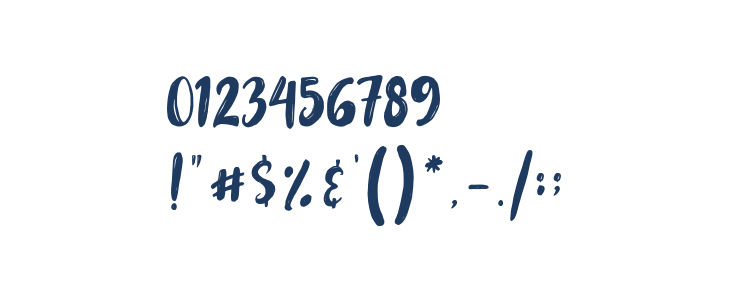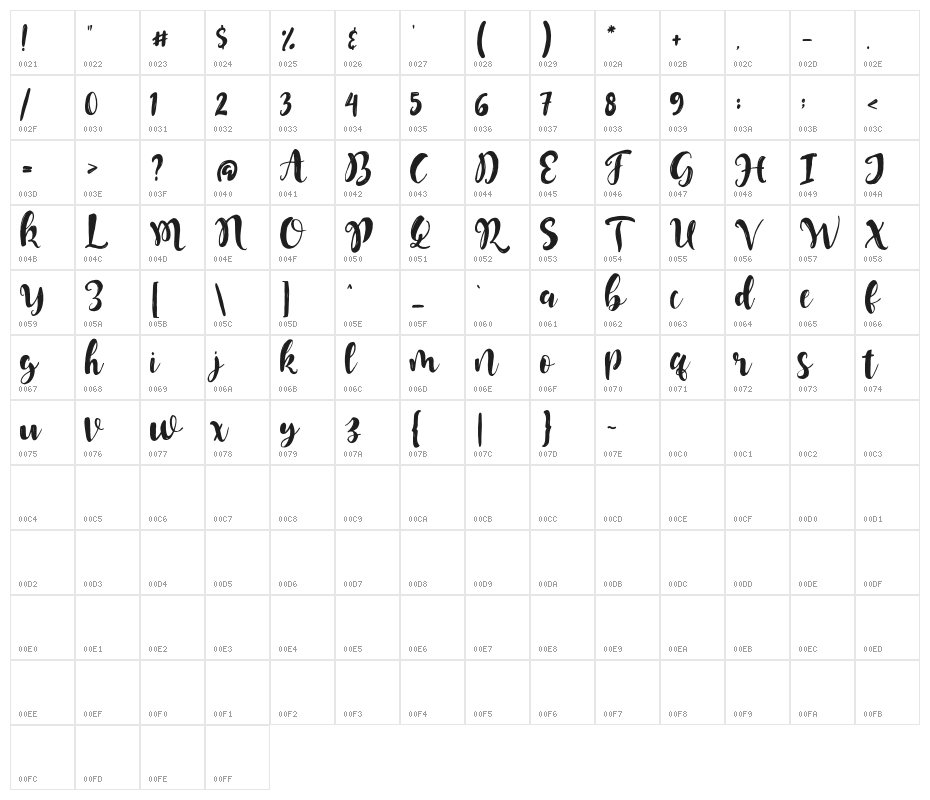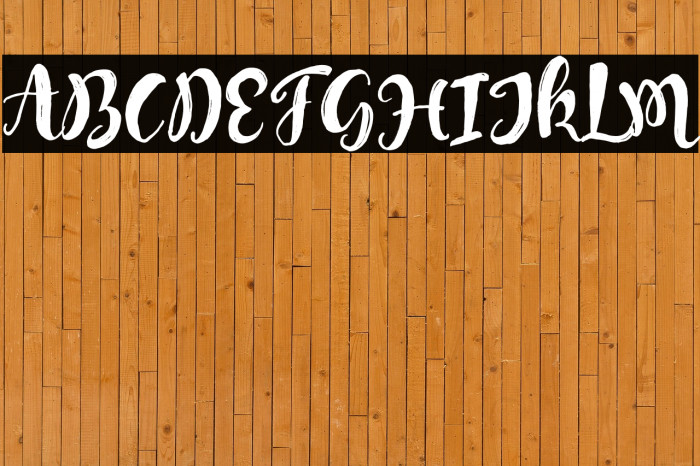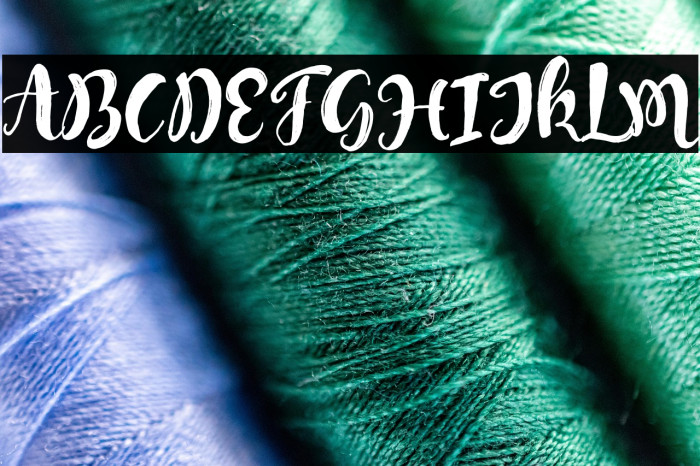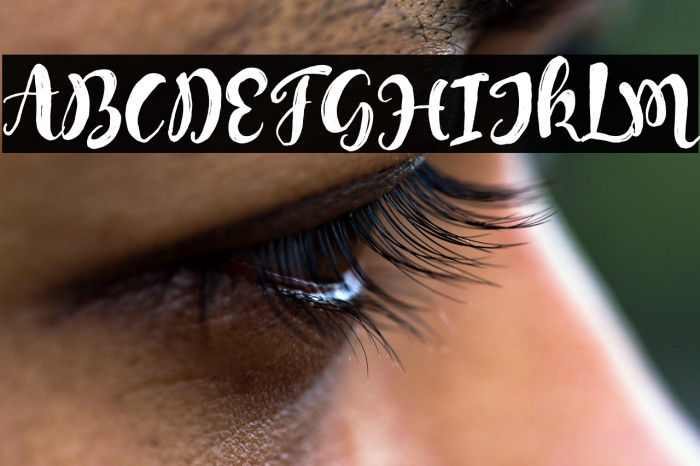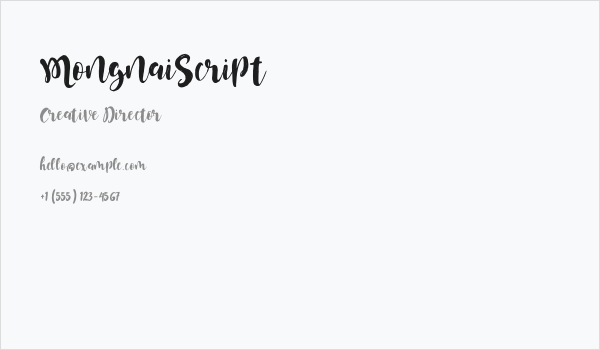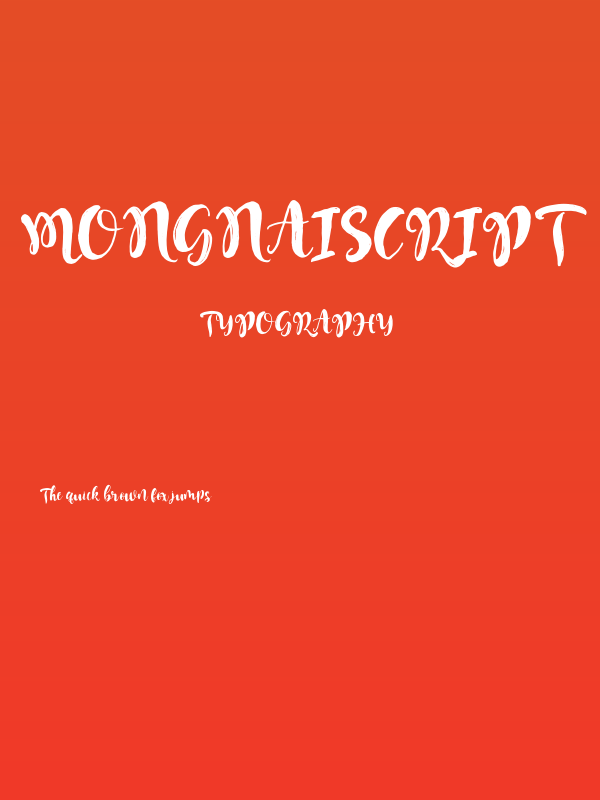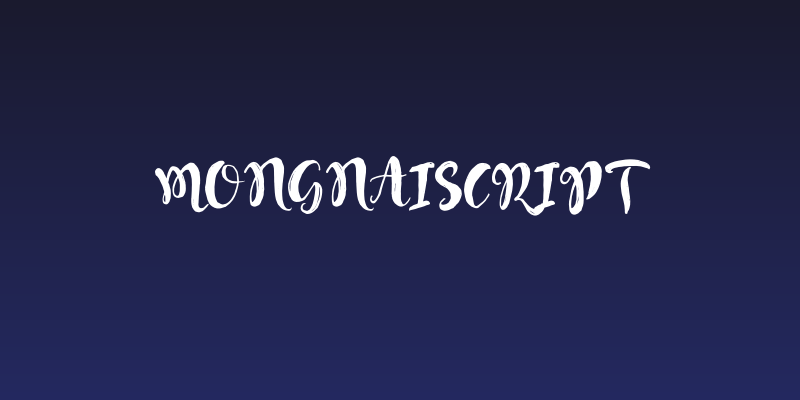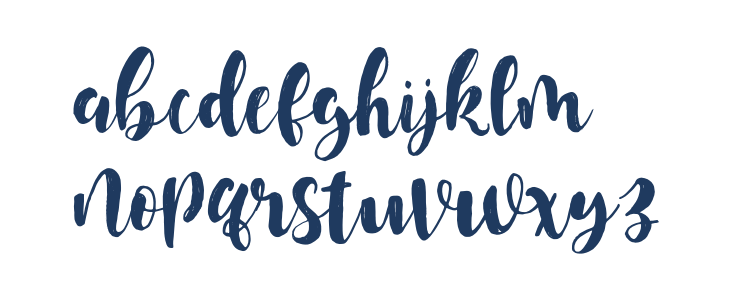
MongnaiScript Font
MongnaiScript Description
This font features a bold, expressive script style with a hand-drawn appearance. The characters are fluid and dynamic, showcasing a sense of movement and energy. The uppercase letters are slightly more structured, while the lowercase letters exhibit more loops and curves, adding to the font's playful nature. The numbers and special characters maintain the same lively aesthetic, making them cohesive with the alphabet. The overall design is reminiscent of calligraphy, with thick strokes and varying line weights that create a high contrast. This font is ideal for projects that require a personal touch or a creative flair.
| Use Case | Logos, Headlines, Invitations |
| Proposed Projects | Perfect for invitations, greeting cards, branding, and creative posters. |